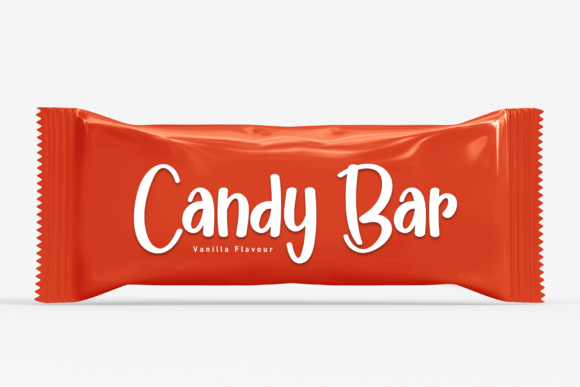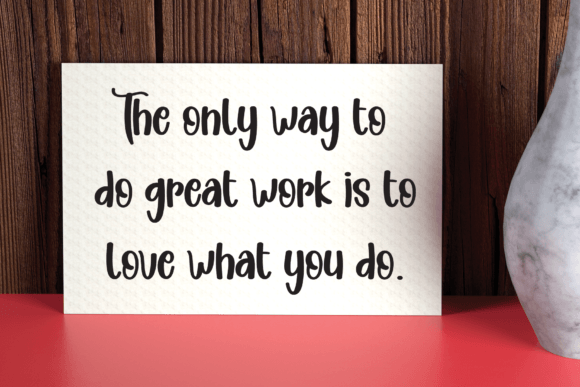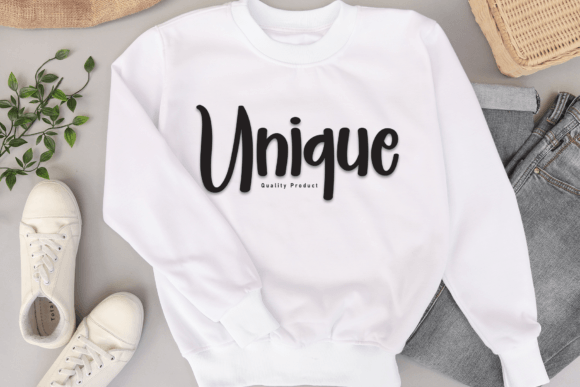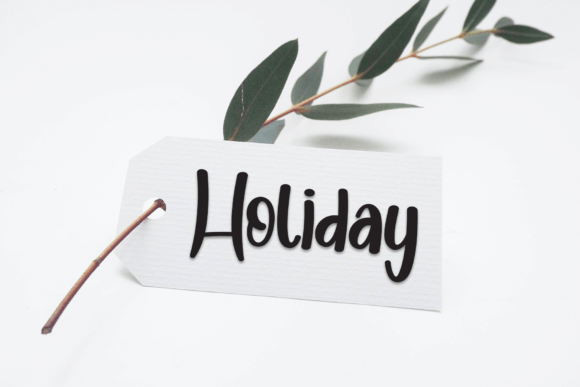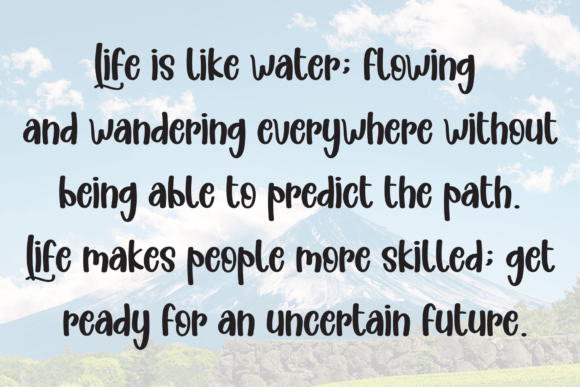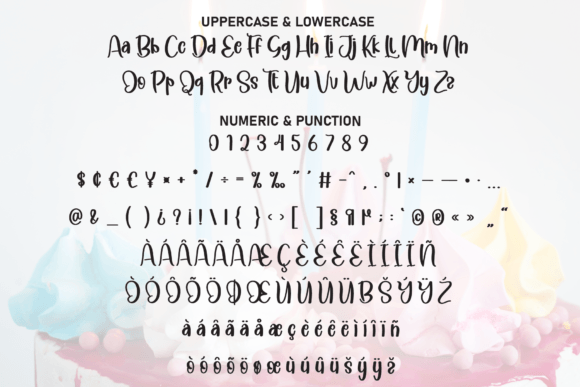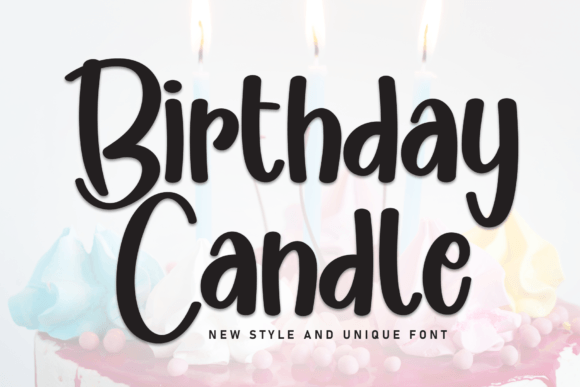
Introducing Birthday Candle Font: Elevate Your Designs with Elegance and Charm
Are you searching for a font that adds a touch of sophistication and whimsy to your designs? Look no further than the Birthday Candle font, a stylish handwritten script font that exudes elegance and charm with its flowing, graceful curves. This beautiful font is perfect for designers and crafters looking to add a personal and refined touch to their projects.
The Beauty of Birthday Candle Font
Birthday Candle is a carefully crafted font that showcases delicate strokes and flowing lines, bringing warmth and creativity to any design. Its unique and stylish appearance makes it an excellent choice for a variety of applications, including:
- Invitations: Create beautiful and elegant invitations for special occasions, such as weddings, baby showers, and birthday parties.
- Logos: Add a touch of sophistication to your brand’s logo, making it stand out from the crowd.
- Branding: Use Birthday Candle font to create a cohesive and refined visual identity for your brand.
- Stationery: Design stunning stationery, including greeting cards, thank-you cards, and letterheads.
Key Features of Birthday Candle Font
So, what makes Birthday Candle font so special? Here are some of its key features:
- Handwritten Script: Birthday Candle font boasts a beautiful, handwritten script that adds a personal touch to any design.
- Elegant Curves: The font’s flowing, graceful curves create a sense of elegance and sophistication.
- Delicate Strokes: The delicate strokes of the font bring warmth and creativity to your projects.
- Versatile: Birthday Candle font can be used for a wide range of applications, from invitations to logos and branding.
Tips for Using Birthday Candle Font
To get the most out of Birthday Candle font, here are some tips to keep in mind:
- Pair with Other Fonts: Combine Birthday Candle font with other fonts to create a unique and visually appealing design.
- Experiment with Colors: Try out different colors and color combinations to find the perfect match for your design.
- Pay Attention to Spacing: Make sure to adjust the spacing between letters and words to ensure a clean and elegant appearance.
Why Choose Birthday Candle Font?
With so many fonts available, why choose Birthday Candle font? Here are just a few reasons:
- Unique and Stylish: Birthday Candle font offers a distinctive and stylish appearance that will set your designs apart.
- Elegant and Sophisticated: The font’s elegant curves and delicate strokes bring a sense of refinement and sophistication to any design.
- Easy to Read: Despite its elegant appearance, Birthday Candle font remains easy to read, making it perfect for a wide range of applications.
In conclusion, Birthday Candle font is a beautiful and stylish handwritten script font that is perfect for designers and crafters looking to add a touch of elegance and charm to their projects. With its flowing curves, delicate strokes, and versatile nature, this font is sure to become a favorite in your design arsenal. So why wait? Download Birthday Candle font today and start creating stunning designs that exude sophistication and refinement.
Whether you’re designing invitations, logos, or branding materials, Birthday Candle font is the perfect choice. Its unique and stylish appearance, combined with its elegance and sophistication, make it an excellent addition to any design project. So go ahead, get creative, and let Birthday Candle font help you bring your designs to life.